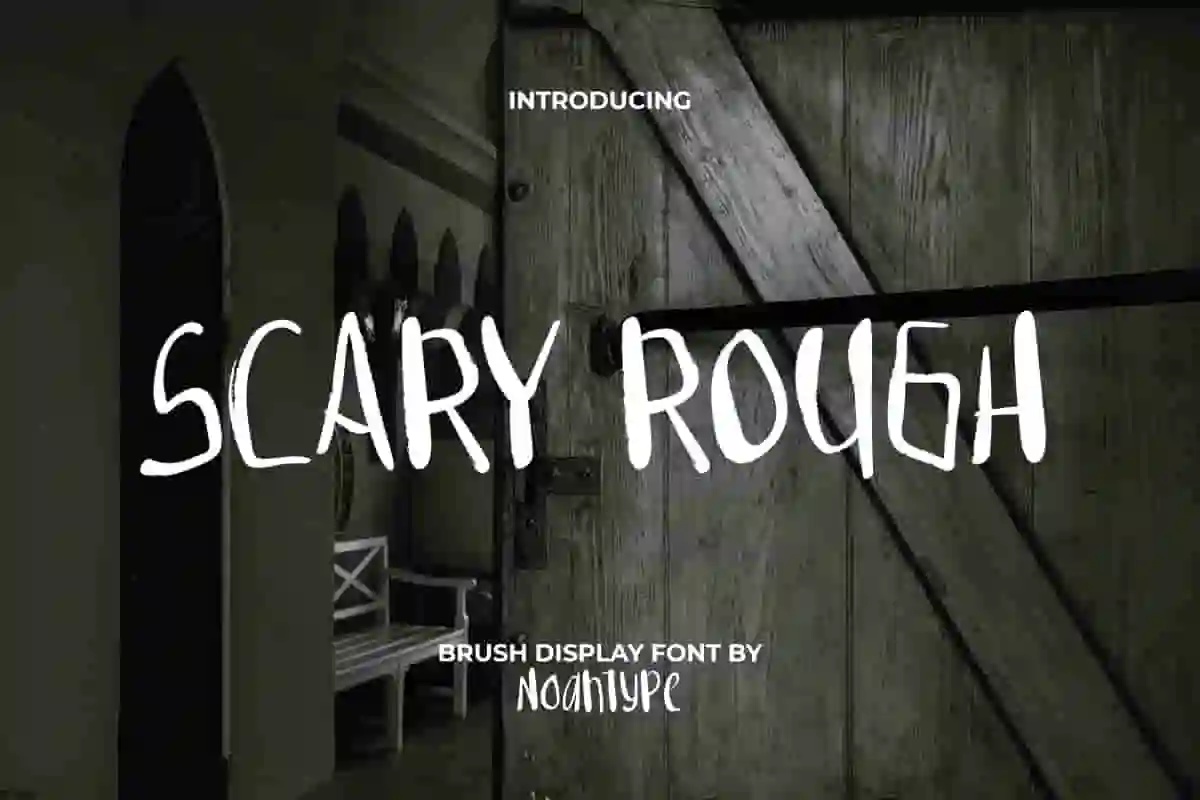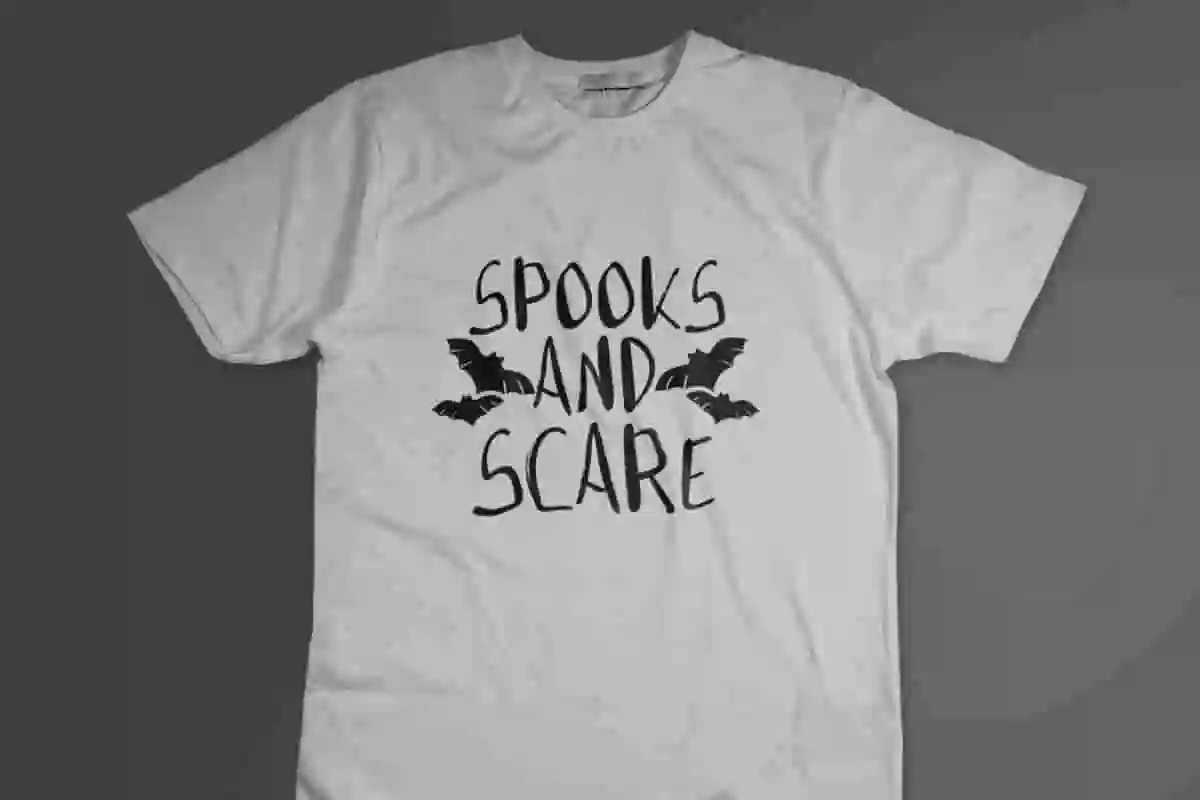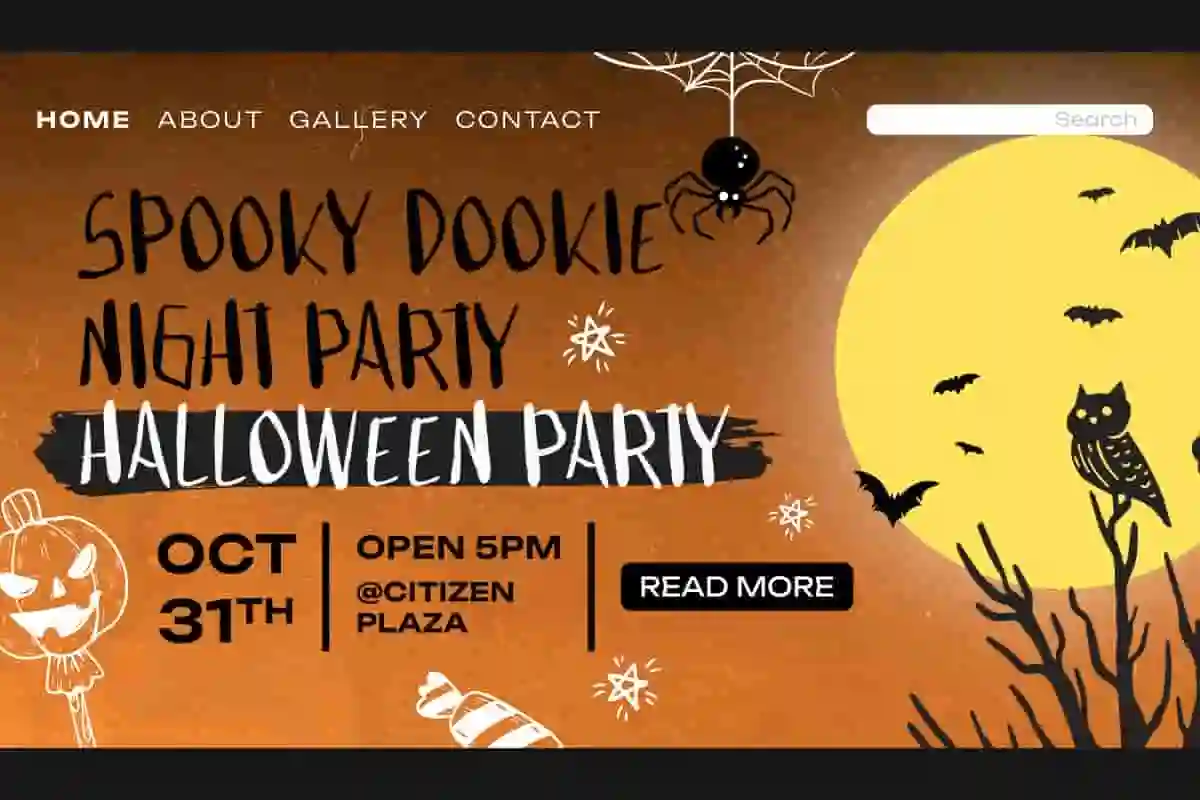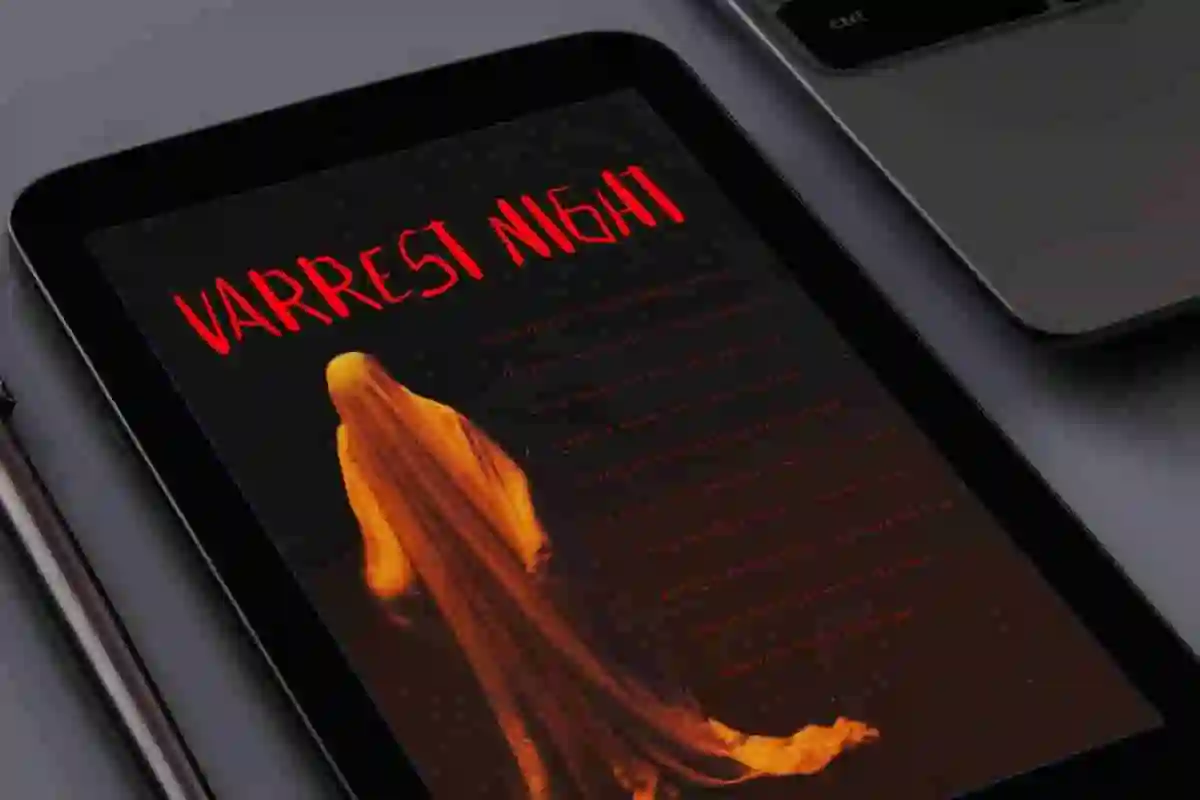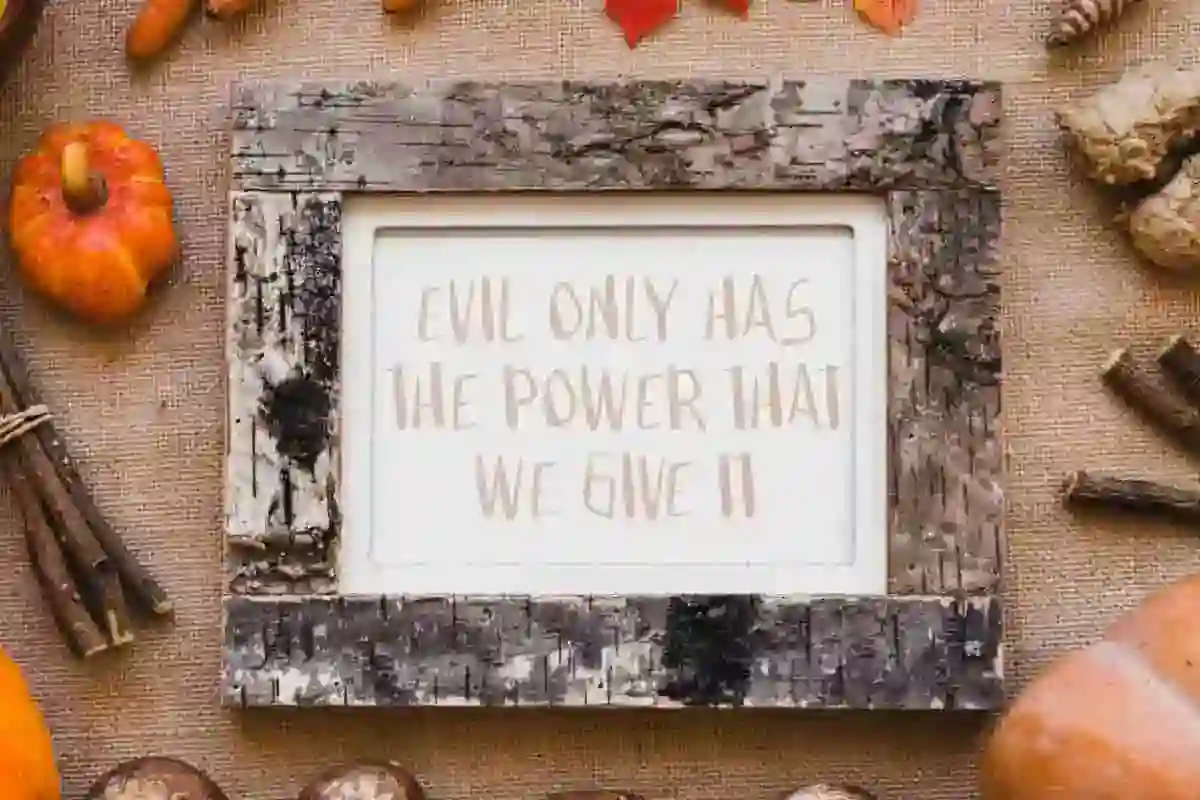
Scary Rough Font
Scary Rough Font is a fun yet spooky brush display font by NoahType. The letter characters in this font are made irregularly, leaving an uncomfortable feeling because they are scary. It will be good for any designs, such as brand image, custom design, invitation, label, marketing material, menu, poster, product packaging, quotes, signage, web, and many more!
Scary Rough Font includes a complete set of Uppercase and Lowercase Basic Characters, Numerals, Punctuation, and Symbol. The characters of this font will give amazing look and also a perfect choice for many industries, such as accessories, advertising, cafes, event or festival, fashion, game, printing, publishing, etc.